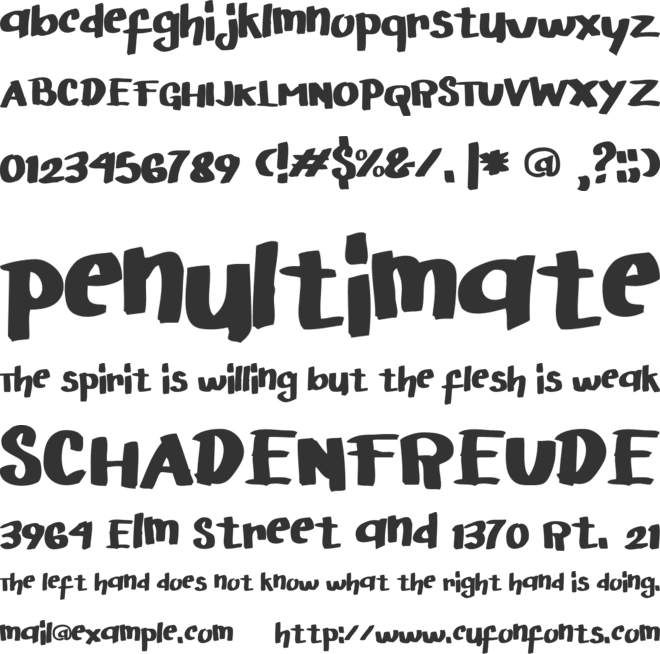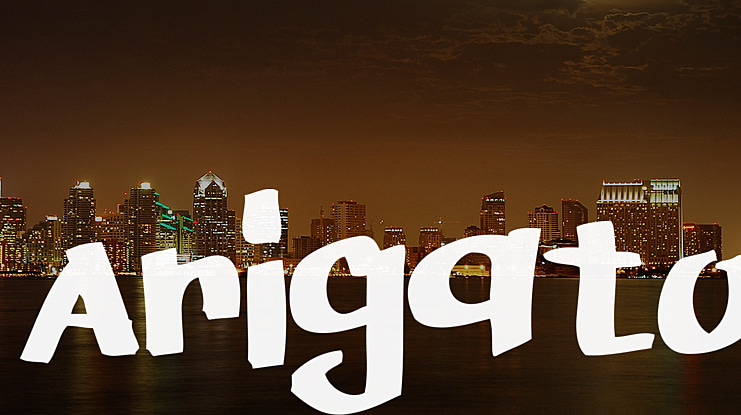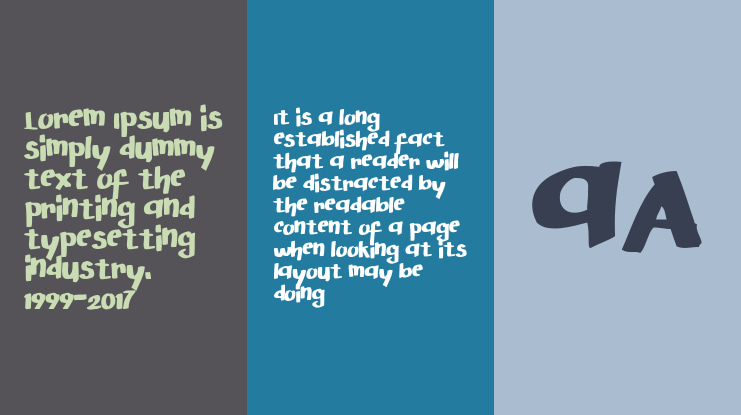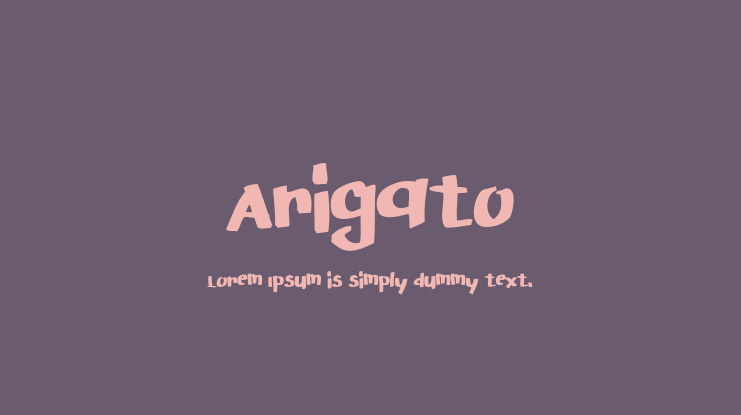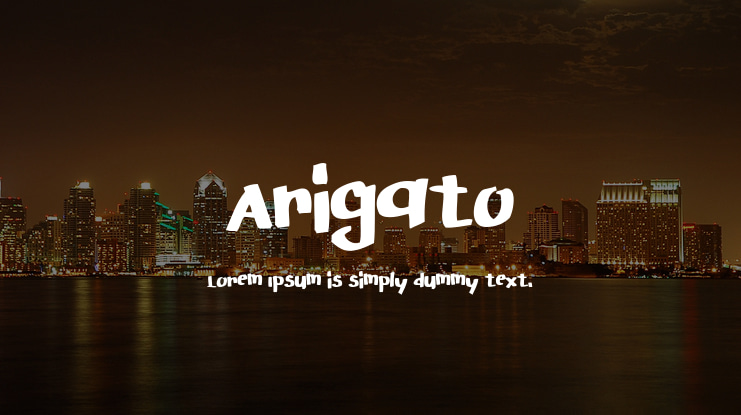
Arigato Font
This font is my own handwriting when i write the text in envelope, i think this handwriting good for convert to font in my computer, i really excited if you use that too
This font great on Uppercase, but i make that lowercase too